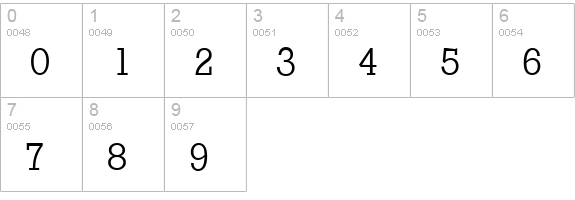
Stafford-Light-Regular is a refined, elegant variant in the Stafford typeface family \xE2\x80\x94 well suited to elegant body text, refined sub-headings, and luxury branding.
Stafford-Light-Regular is a modern and elegant font that exudes sophistication and style. With its clean lines and timeless design, this font is perfect for a wide range of projects, from branding to editorial design. The light weight of the font adds a delicate touch to any text, making it ideal for conveying a sense of refinement and elegance. The best part? Stafford-Light-Regular is available for free download at FontsMarket.com. This means you can easily access this beautiful font and use it in your projects without any cost. Whether you're working on a logo, website, or marketing materials, Stafford-Light-Regular is a versatile font that will elevate your designs and make them stand out. Download it today and add a touch of sophistication to your work!